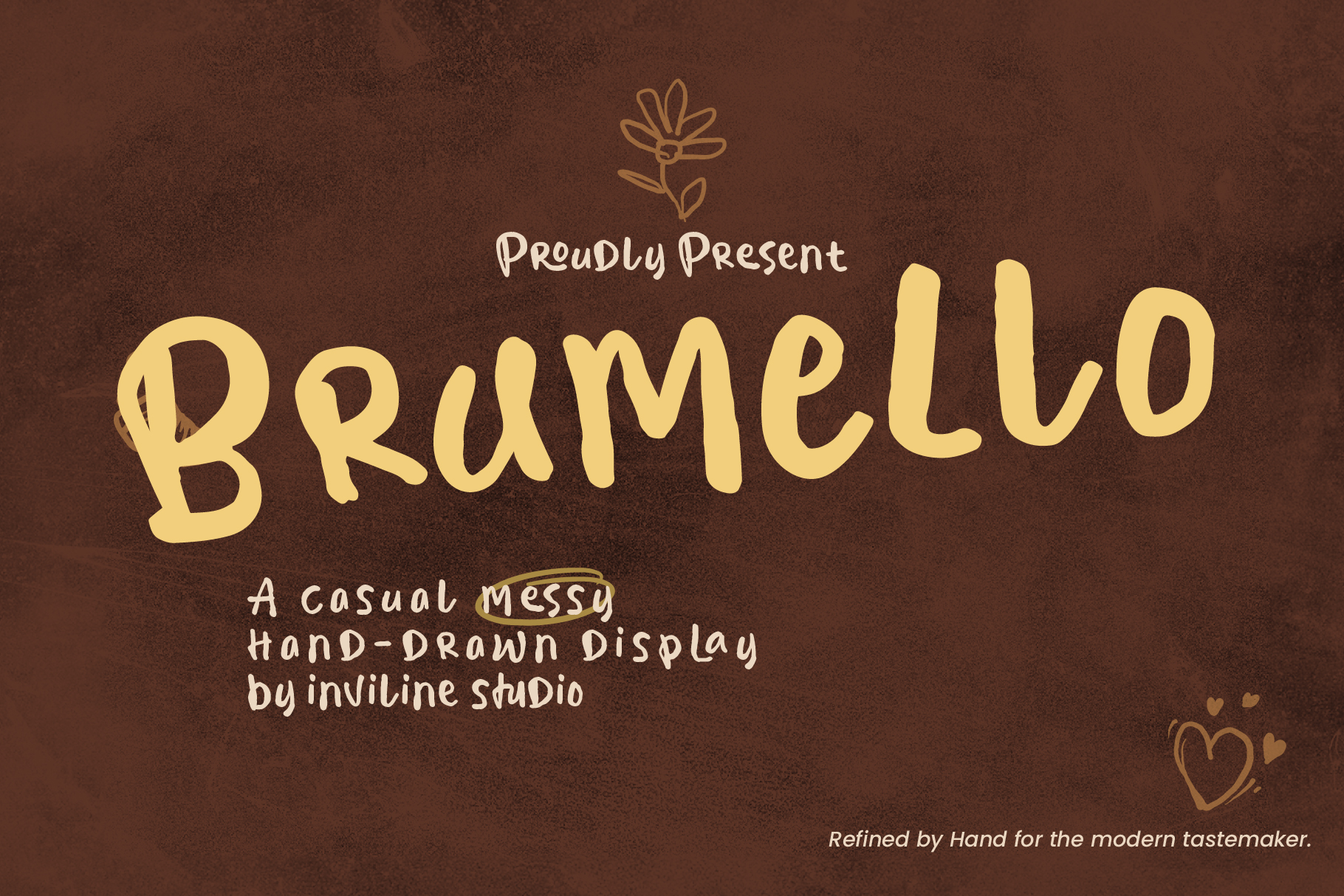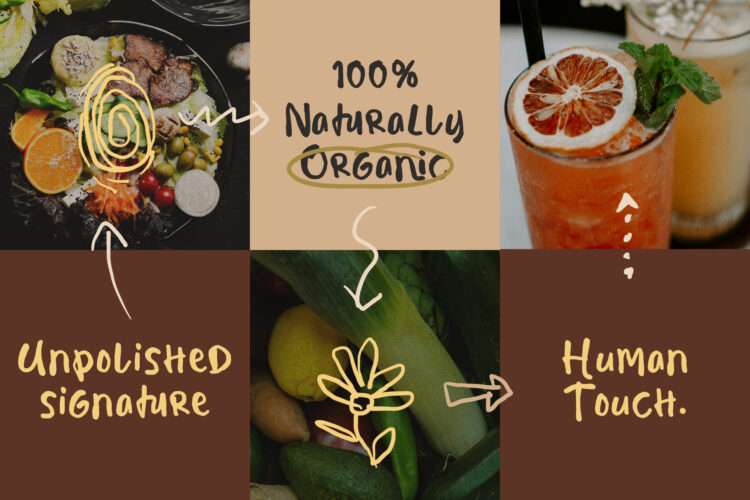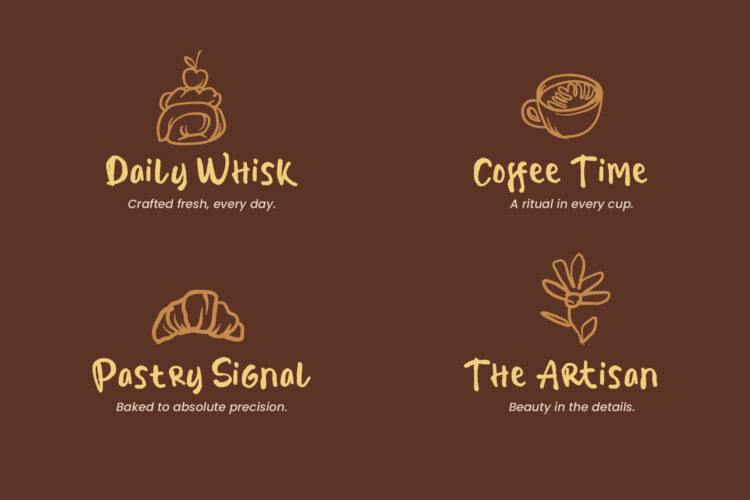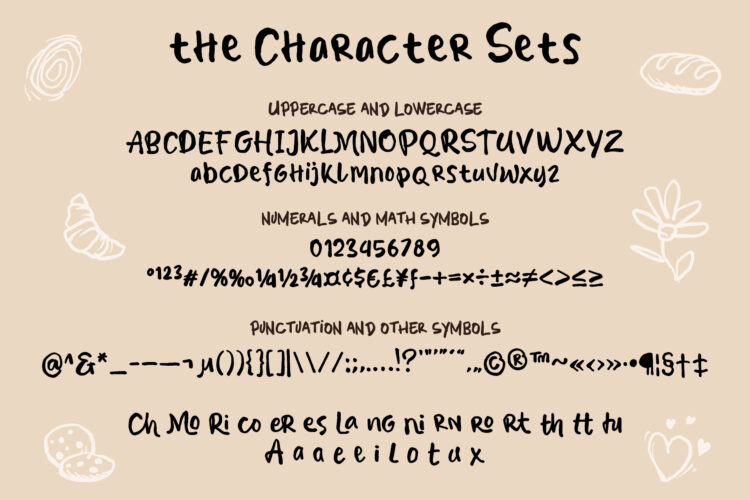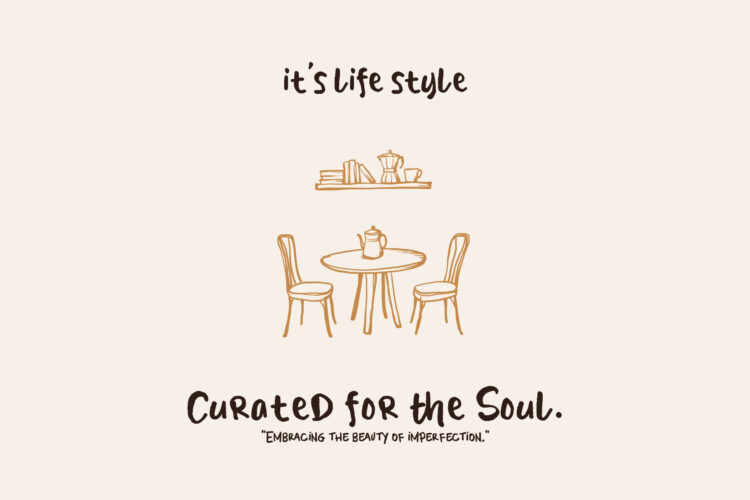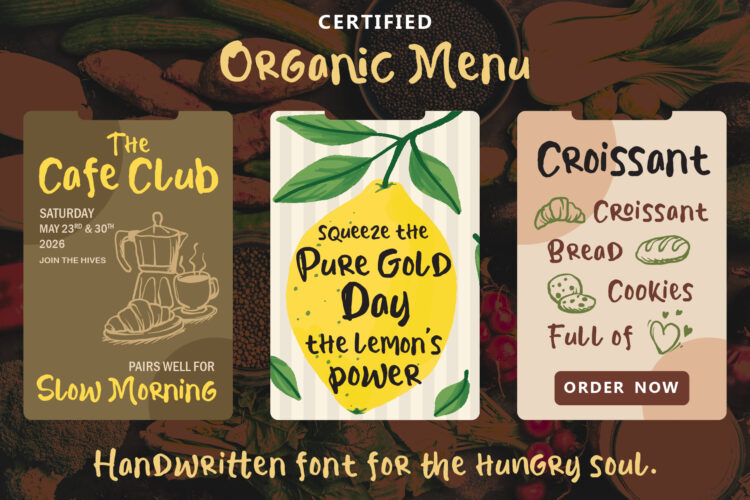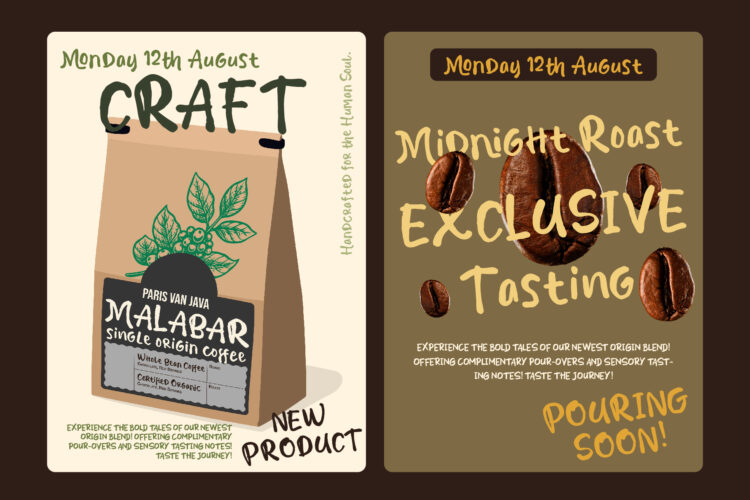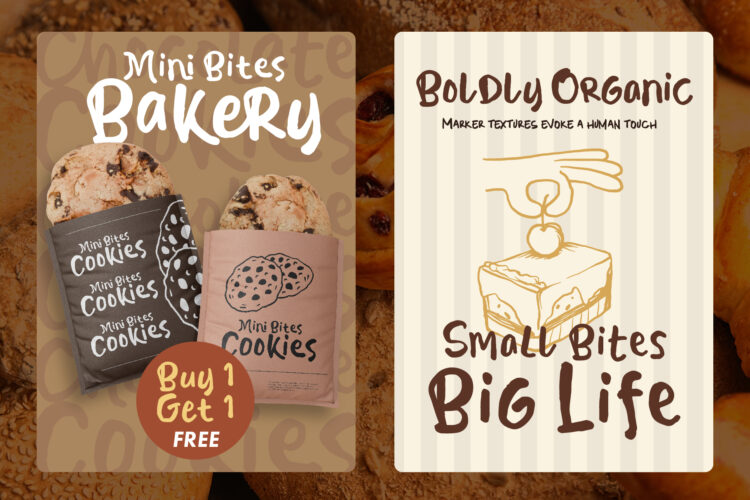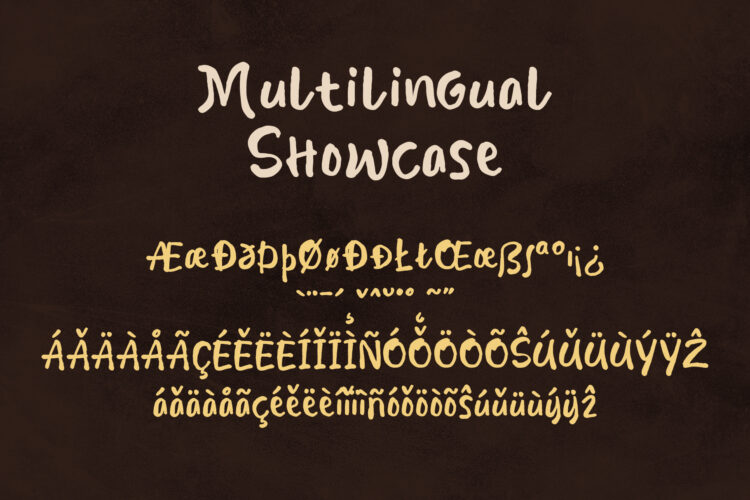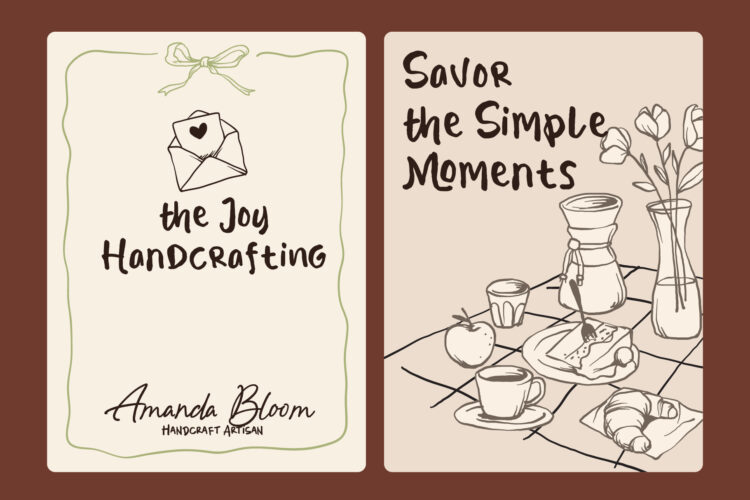
Brumello - Regular
Authentic Craftsmanship Meets Modern Luxury.
Brumello – Hand-drawn Display Font is a masterclass in “Quiet Luxury” with a human edge. Unlike rigid, geometric serifs, Brumello features subtle hand-crafted imperfections that give it a warm, approachable, yet undeniably premium character.
Inspired by bespoke stationery and artisanal fashion houses, this font excels in large-scale applications such as mastheads, brand identities, and sophisticated social media graphics. It’s for the brand that values the “handmade” feel without sacrificing an ounce of elegance.
Key Features:
• Hand-drawn Aesthetic: Authentic strokes for a unique, bespoke feel.
• Sophisticated Serif Style: Maintains professional grace and readability.
• Editorial Versatility: Perfect for magazines, lookbooks, and upscale event stationery.
• Full Support: Multilingual characters included for global projects.
Bring a sense of craftsmanship to your next high-end project with Brumello. Exclusively crafted by Inviline for the discerning designer.